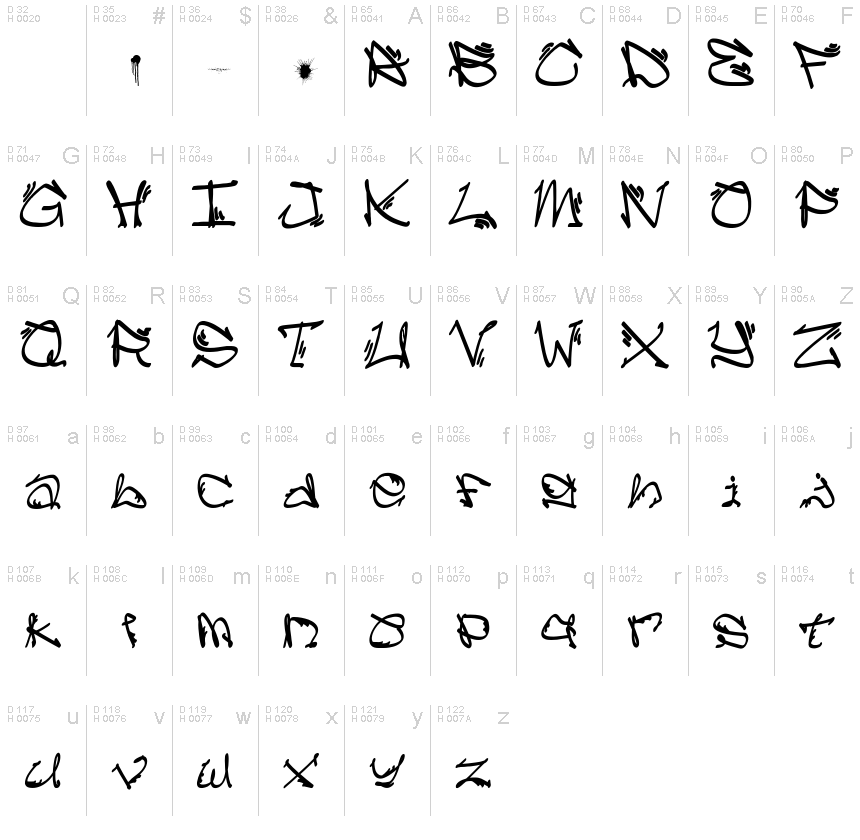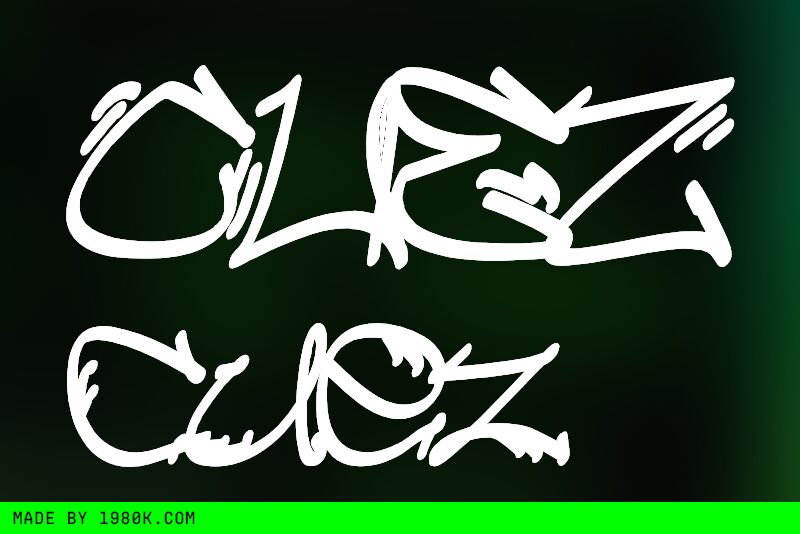
Cuez_Ver3
Cuez Ver3 font from the Cuez family, crafted by 1980k.com, captures the rebellious spirit of graffiti with its bold and expanded style. Designed in Adobe Illustrator and converted to TrueType format in 2004, this free font (CC0 licensed) stands out for its dynamic strokes and expressive curves.
Perfect for urban-inspired designs, album covers, or advertisements needing a creative edge, Cuez Ver3 brings an energetic vibe that's impossible to ignore.